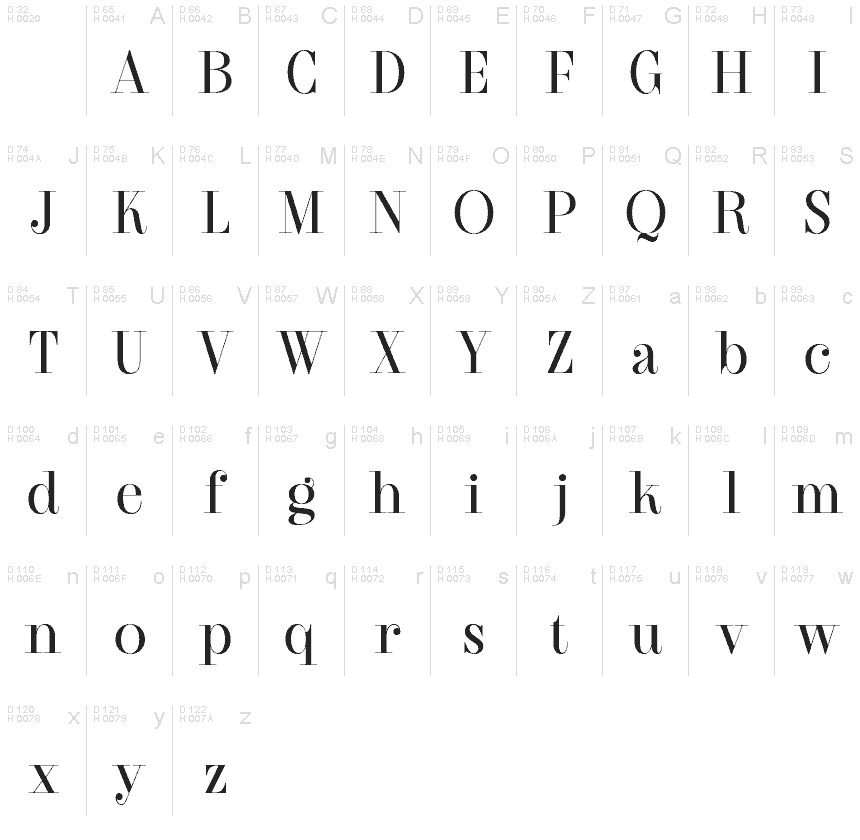
CS Quetzal font by Craft Supply Co. is a baroque-inspired serif font whose elegance comes naturally. This typeface gets its classiness and style from the combination of refined letterforms with traditional details and decorative elements for an ornamental flair that’s beyond comparison.
Use this perfect free serif font for your wedding or special event invitations, in branding projects like logotypes, packaging designs, on business cards, magic book covers, typography posters, or social media posts.